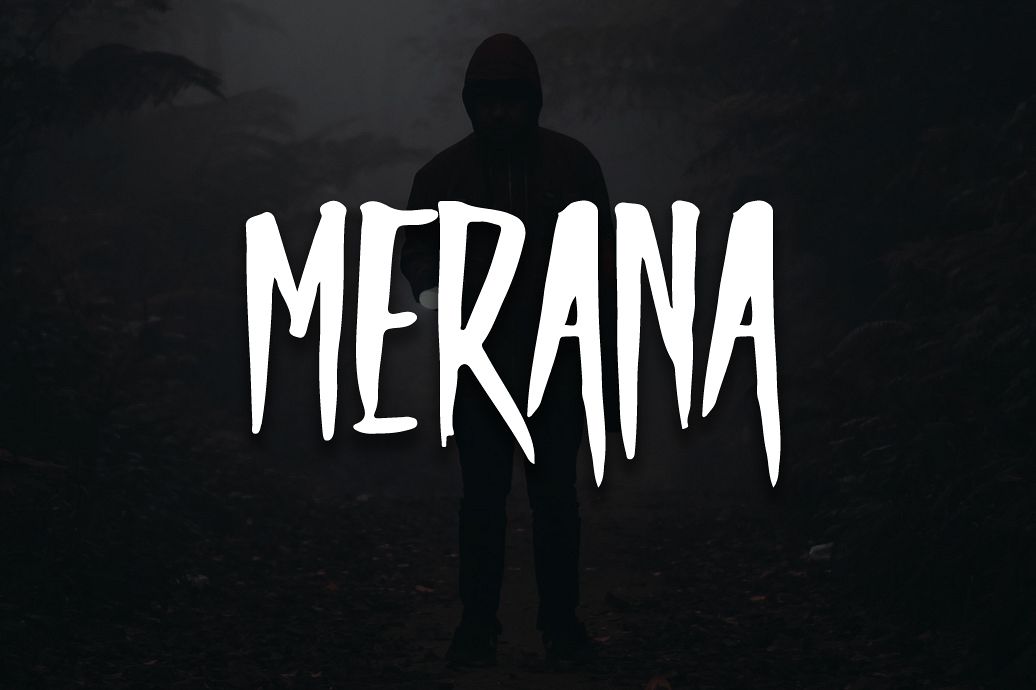
Merana Typeface
Merana
aholla .. introduce a new font from us. This font is created with a brush pen stroke. made with gothic style so it looks creepy. This font is suitable for your designs that creepy concept.